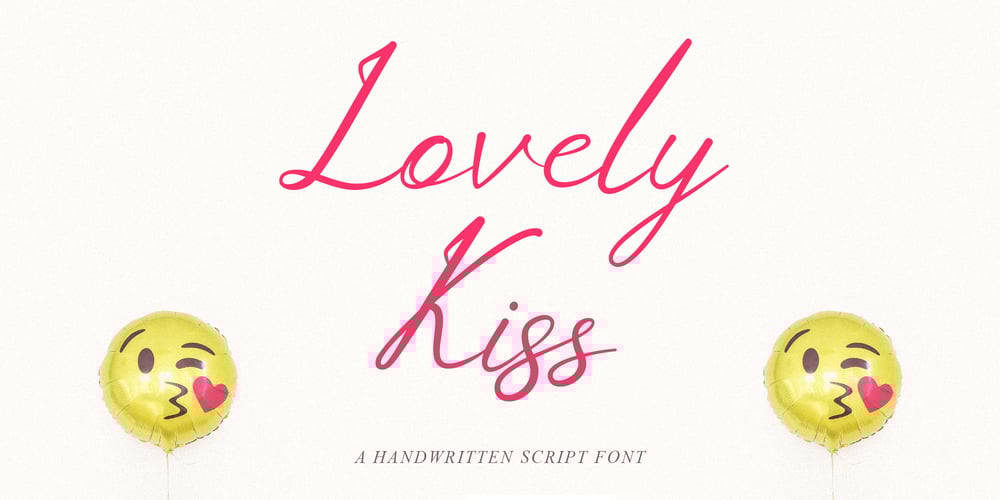
Lovely Kiss Font Family was designed by Fidan Aslanova and published by Fidan Fonts. Lovely Kiss contains 1 styles and family package options. Lovely Kiss is a handwritten classy script font.It includes full set of uppercase and lowercase basic characters, multilingual symbols, numerals, punctuation and ligatures (check the previews in order to see them all).It’s works perfectly for wedding stationery, elegant branding, book cover designs, packaging, album covers, handwritten quotes, greeting cards, social media posts, and many more. Latin-based Language Support (You can check your language typing characters in text box below).If you want to type with stylistic ligatures make sure you have them turned on (use a capable software like Photoshop, Illustrator, InDesign, Word, Pages etc). Note: If you don’t use this font with these programs stylistic ligatures won’t work.Happy creating!